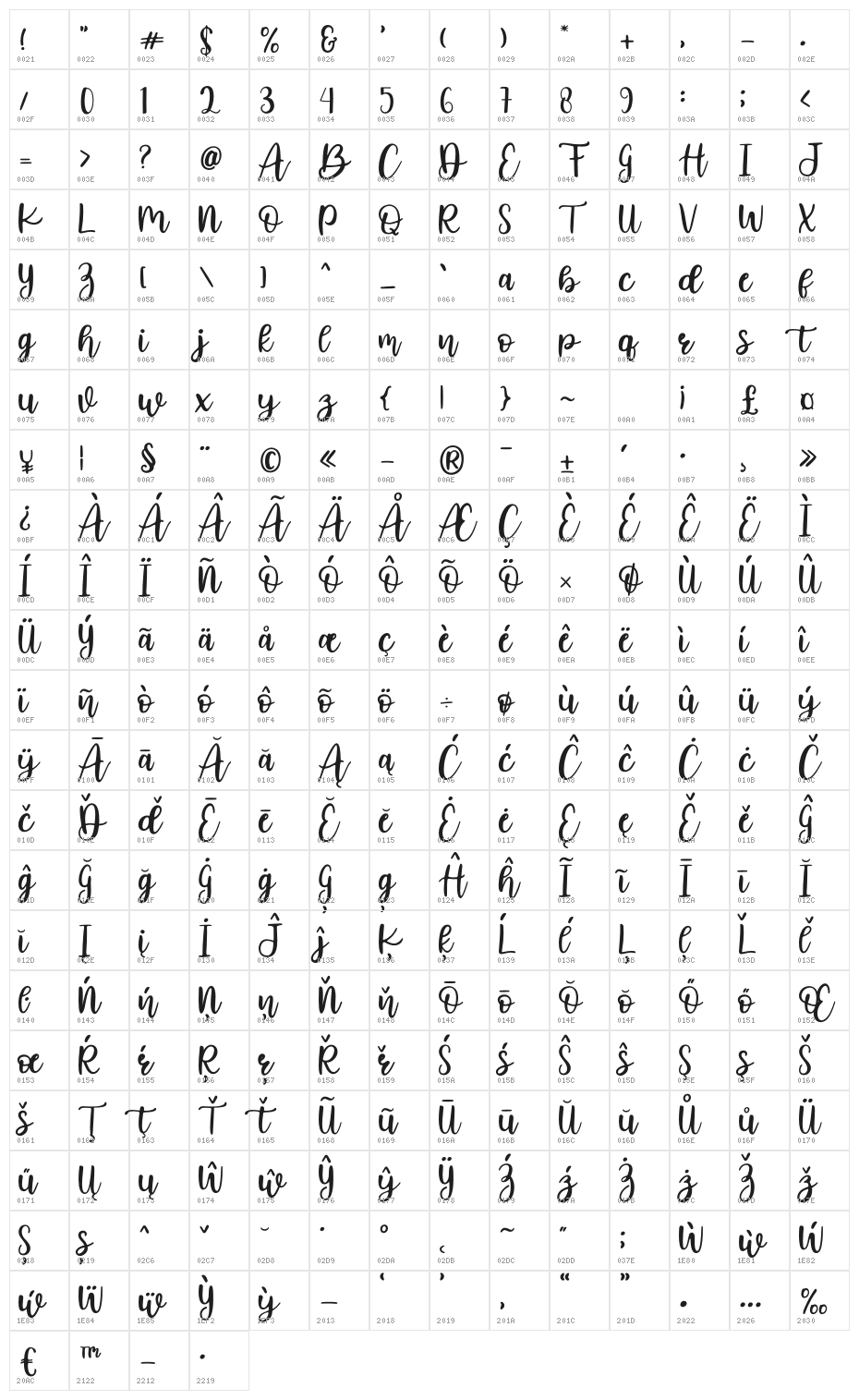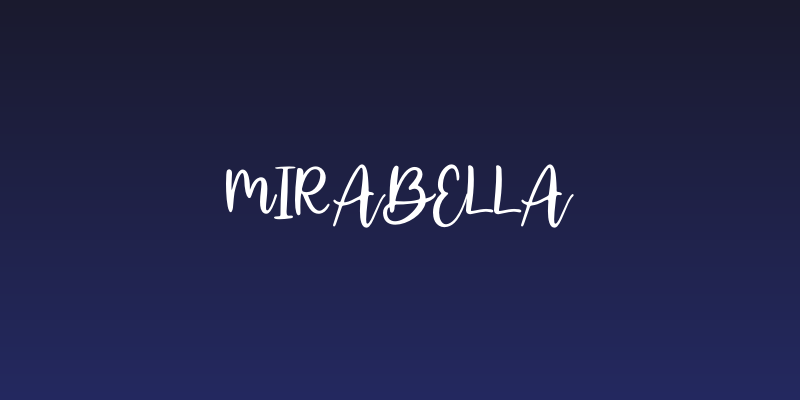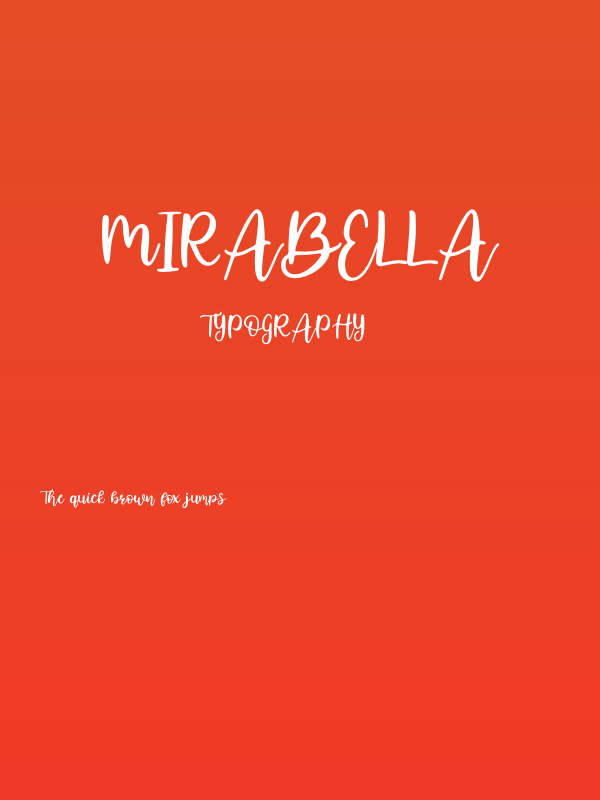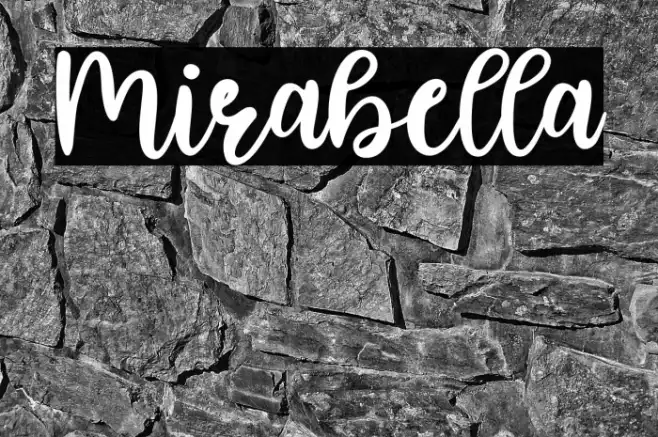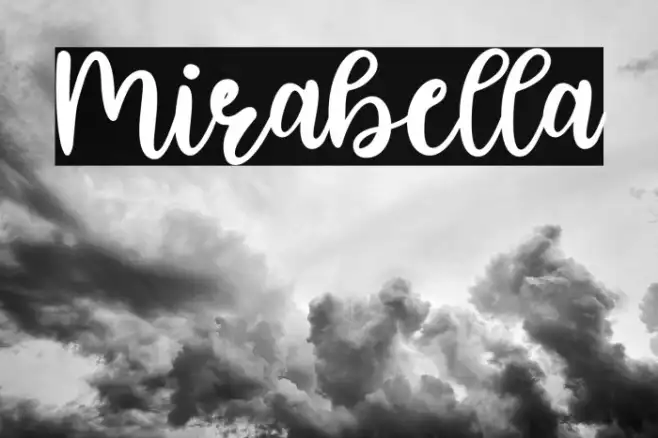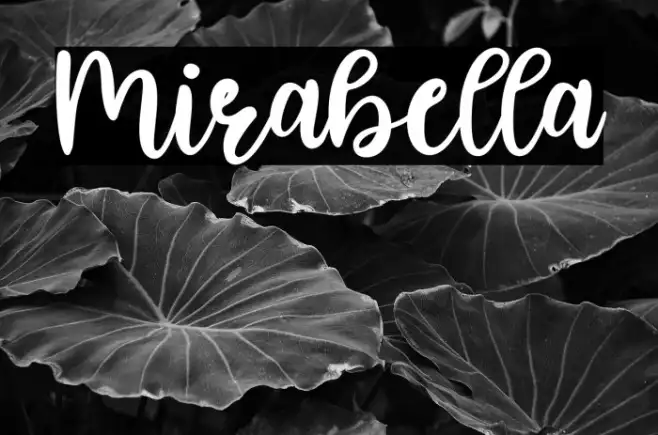
Mirabella Font
Mirabella Description
This font features a lively and playful script style, characterized by its flowing, cursive letterforms. The uppercase letters exhibit a whimsical flair with varying stroke widths, while the lowercase letters maintain a consistent, smooth flow. The numerals are bold and rounded, complementing the overall aesthetic. Special characters are creatively integrated, adding to the font's charm. This font's handwritten appearance gives it a personal and inviting feel, making it suitable for a variety of creative applications.
| Proposed Projects | Ideal for greeting cards, invitations, branding, and social media graphics. |